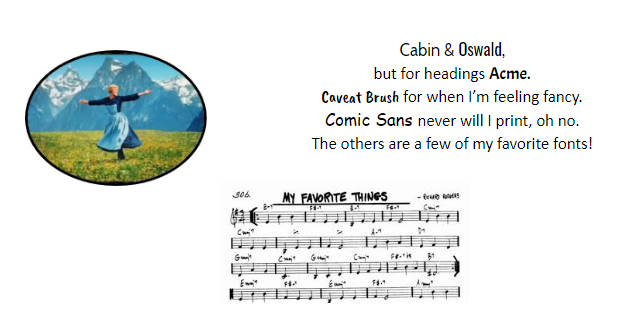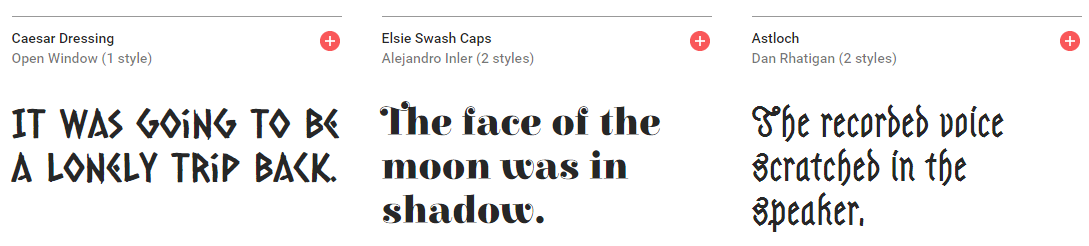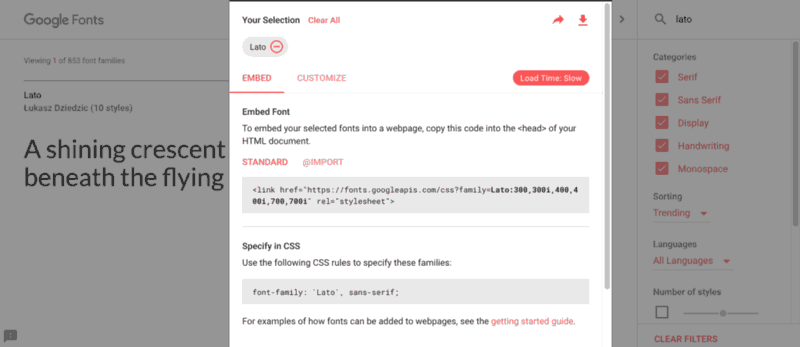
Favorite Google Fonts For Teachers
Especially if you are used to creating documents with your favorite colors and fonts.
Favorite google fonts for teachers. My name is mrs. Making the web more beautiful fast and open through great typography. These are the 40 best free web fonts available on google fonts in my humble opinionthey are all open source and 100 free for commercial use.
Test scores is djb standardized test bubbles download here or at tpt. Favorite teacher fonts is djb this font is bold download here or at tpt. I collected a huge list of favorites and compiled them into a google doc to share with you.
Once you find the perfect fonts from google fonts here are some best practices for using google fonts on wordpress. Aug 5 2020 time to get fancy55 favorite fonts for google drive ladybugs teacher files fonts script handwriting. Sometimes google docs can look a littlewell blah for lack of a better word.
50 of the best google. Limit the number of font weights you use. Best practices for using google fonts on wordpress.
Back over the summer i asked my readers on instagram to share some of their favorite go to google fonts. The dog ate my homework is djb stinky marker download here or at tpt. Some of these fonts like montserrat and raleway come with 18 different font weights.
This is the worlds shortest blog post to share something nice for all of those google teachers out there. We have 43 free teacher fonts to offer for direct downloading 1001 fonts is your favorite site for free fonts since 2001. This collection focuses on typeface families from reputable type designers and foundries that contain multiple weights and styles.